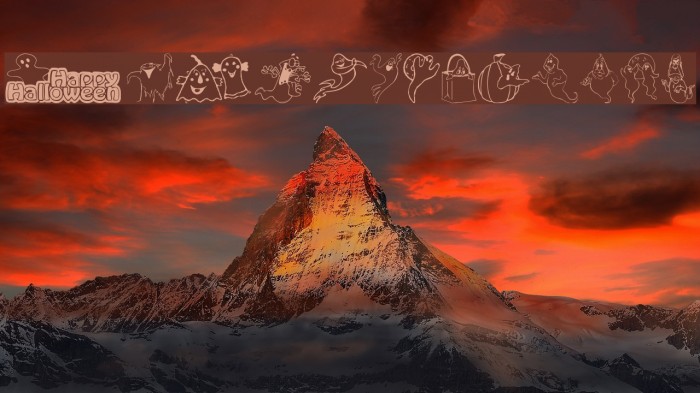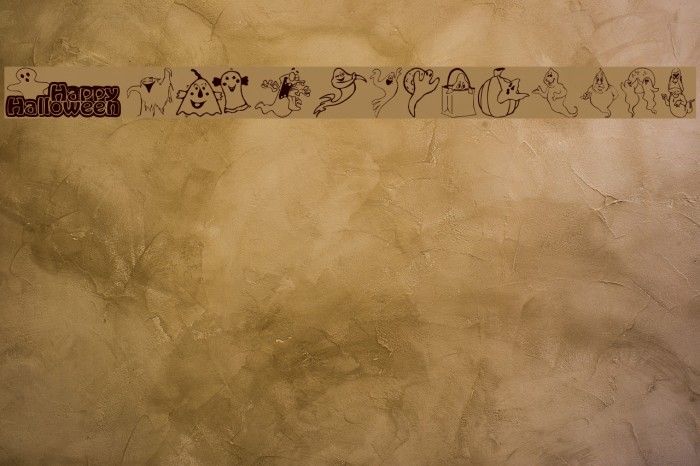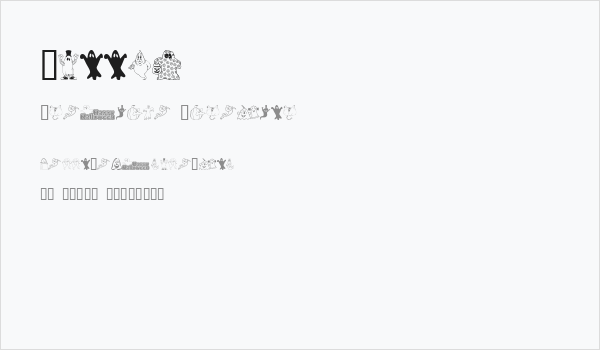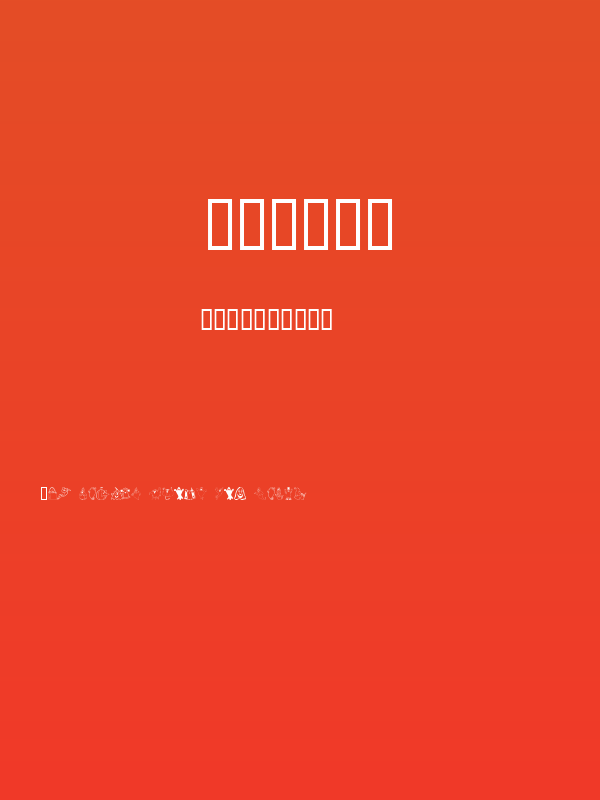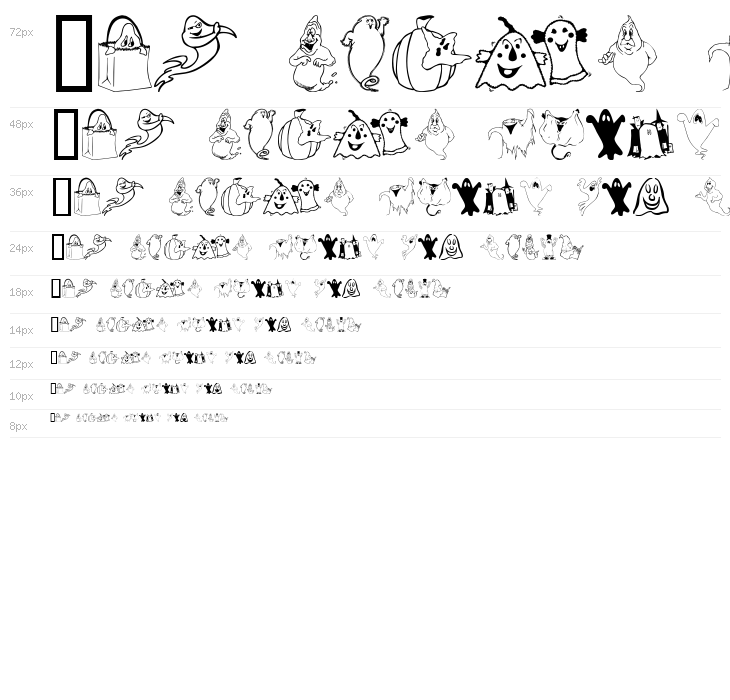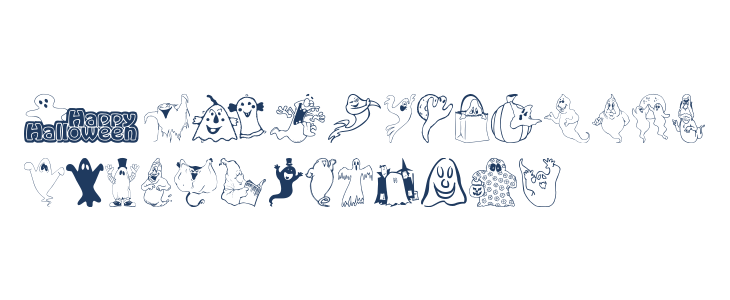
Spooky Font
Spooky Description
A playful, decorative font featuring whimsical ghost and Halloween-themed illustrations for each character, with a hand-drawn, cartoonish style. Each letter is represented by a unique ghost or spooky figure, making it highly illustrative and thematic.
| Overall Style | Decorative, Playful, Thematic |
| Use Case | Headlines, Posters, Themed Graphics |
| Proposed Projects | Halloween party invitations, event posters, children's crafts, themed banners, seasonal greeting cards. |